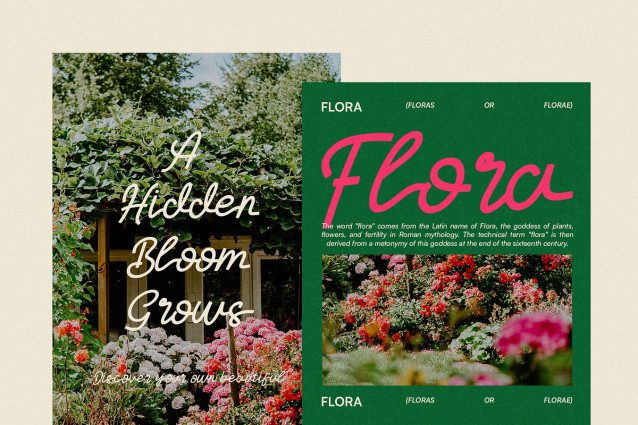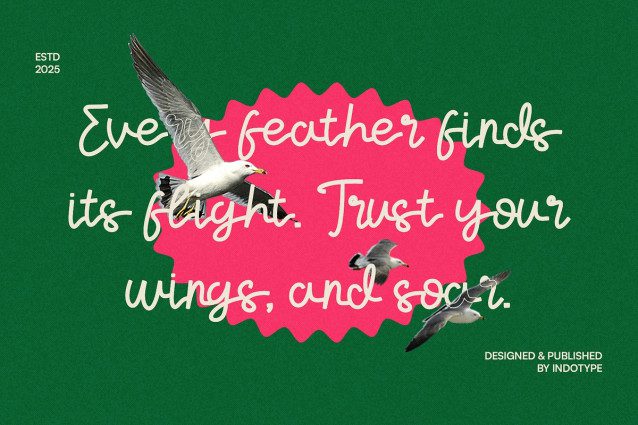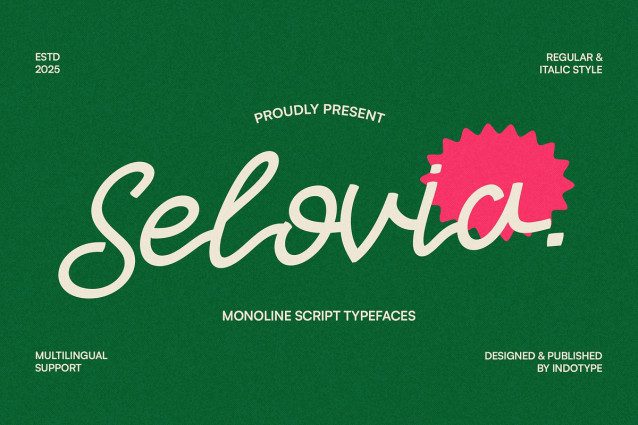
IT Selovia Font is a monoline script typeface that combines elegance with modern versatility. Designed with smooth, continuous strokes and natural curves, Selovia captures the warmth and authenticity of hand-lettering while maintaining the clarity of a clean digital font. Available in Regular and Italic styles, this typeface is perfect for projects that require a personal, friendly, and approachable feel. Its fluid letterforms make it an ideal choice for logos, wedding invitations, branding, packaging, social media, greeting cards, editorial design, and lifestyle products. Selovia also supports multilingual characters, ensuring global usability for diverse projects. Published by Indotype in 2025, Selovia is a modern script font that effortlessly balances charm and professionalism, making it a timeless addition to your type library.